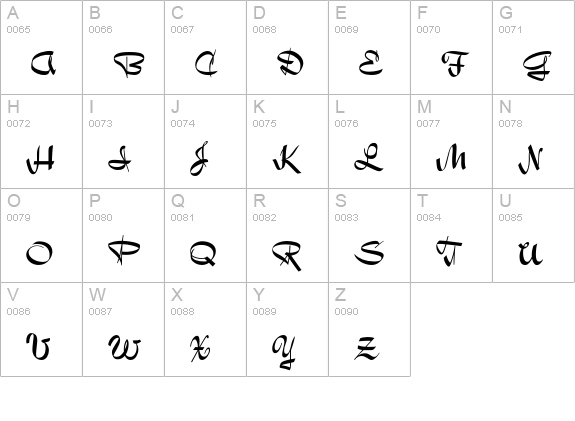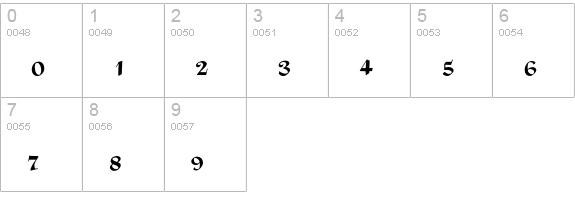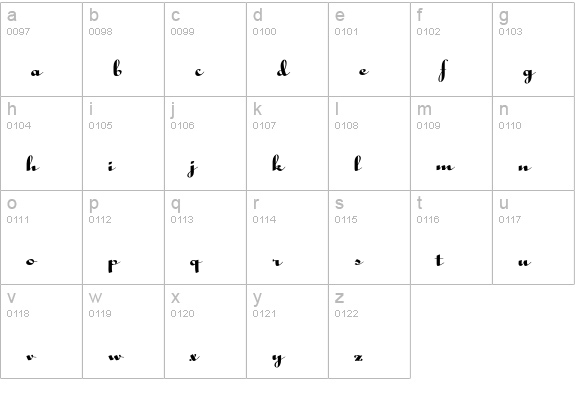
OPTIHolly-Script Font Details
OPTIHolly-Script is a stunningly elegant and versatile script font that exudes sophistication and charm. Its delicate curves and flowing lines make it perfect for a wide range of design projects, from wedding invitations to branding materials. With its timeless and graceful appearance, OPTIHolly-Script adds a touch of refinement to any design. And the best part? OPTIHolly-Script is completely free to download at FontsMarket.com. Now you can easily add a touch of class to your projects without breaking the bank. Don't miss out on this beautiful font - download OPTIHolly-Script today and elevate your designs to a whole new level.